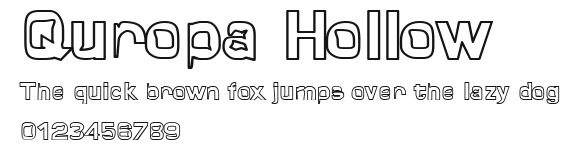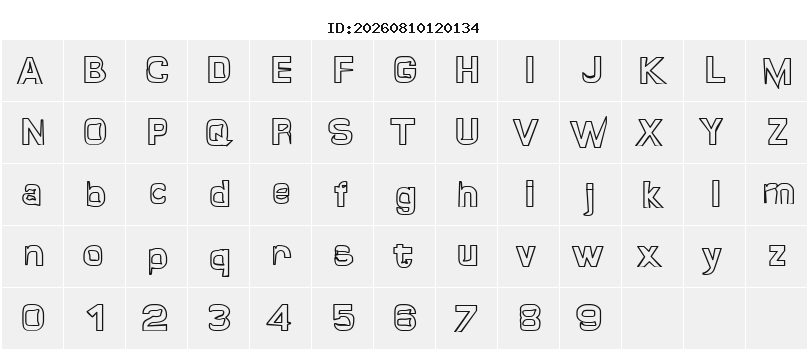
• Font Name: Quropa Hollow
• Font ID: Quropa Hollow
• Full Font Name: Quropa Hollow
• Version: 1.0 of this neat font beastie
• PostScript Name: QuropaHollow
About Quropa Hollow.ttf
Quropa Hollow.ttf is a modern, elegant sans-serif font designed for ultimate readability and visual harmony. Perfect for branding, headlines, web design, and print materials.